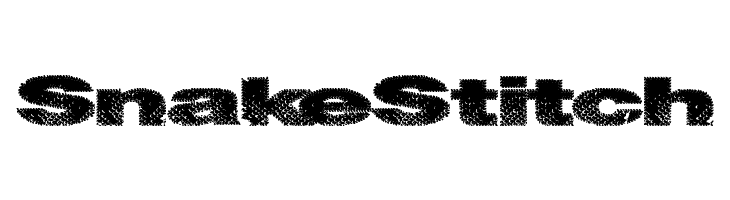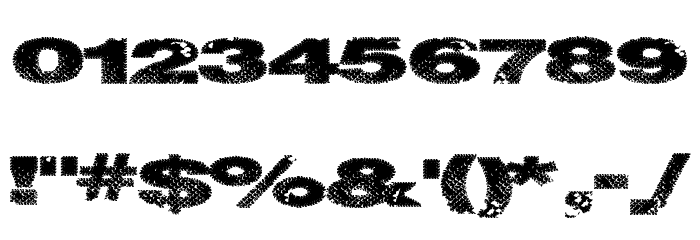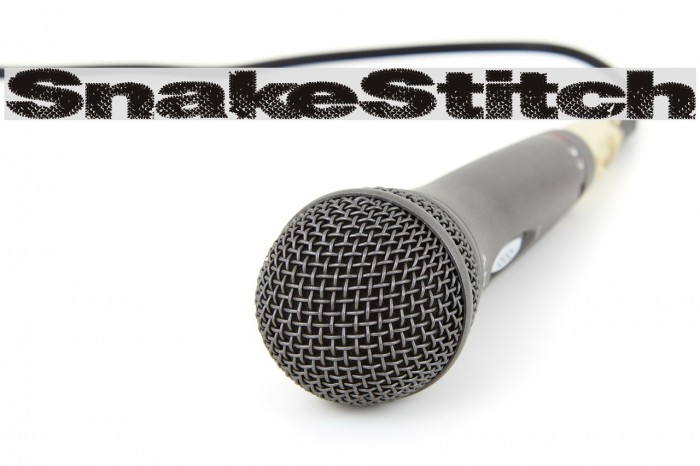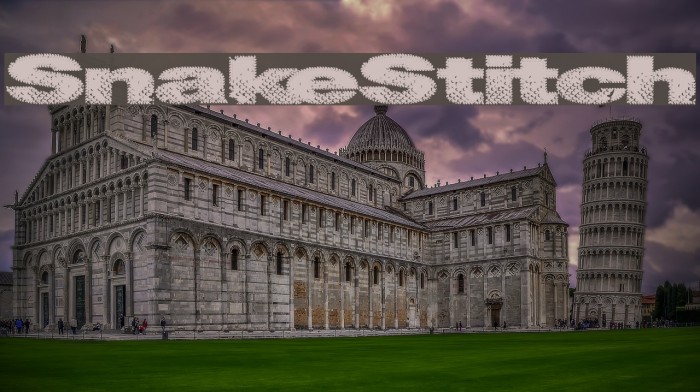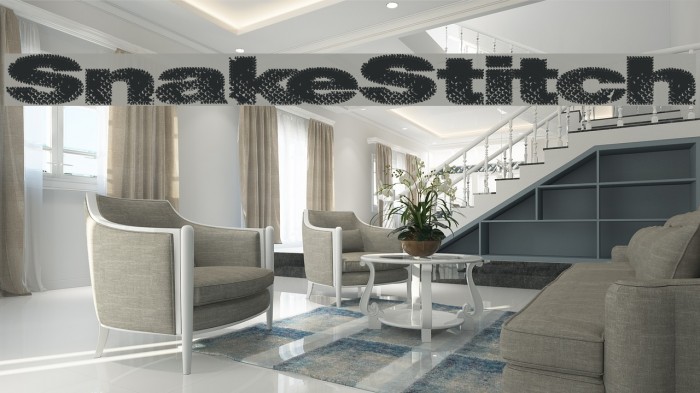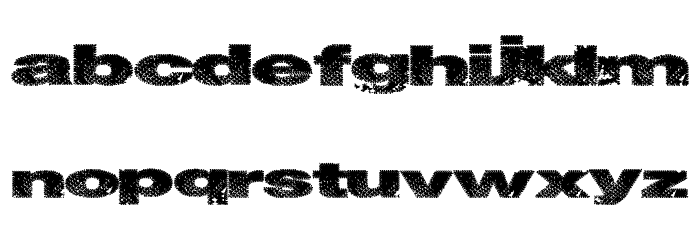
SnakeStitch Font
SnakeStitch Description
This font features a bold, textured style that mimics the appearance of a stitched or embroidered pattern. Each character is filled with a dense, dotted texture that gives it a unique, tactile look. The characters are bold and wide, making them highly visible and impactful. The uppercase and lowercase letters maintain a consistent style, with rounded edges and a uniform thickness throughout. Numbers and special characters are equally bold and textured, ensuring a cohesive appearance across all elements. This font's distinctive style makes it ideal for creative and artistic projects where a handcrafted or vintage aesthetic is desired.
A bold, textured font with a stitched, embroidered appearance from Distorted Eroded fonts.
- Proposed Projects: Ideal for branding, posters, apparel design, and any project requiring a handcrafted or vintage look.
- Width: Expanded